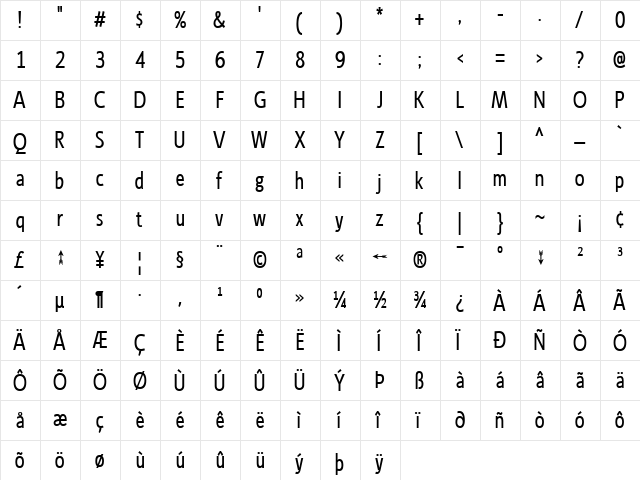
Ligurino Condensed Condensed
Design Context for Ligurino Condensed Typeface
Ligurino Condensed offers clean, dependable letterforms without strong stylistic allegiance, making it a practical choice for designers who need flexibility. The condensed width makes it efficient for tight spaces without sacrificing legibility.